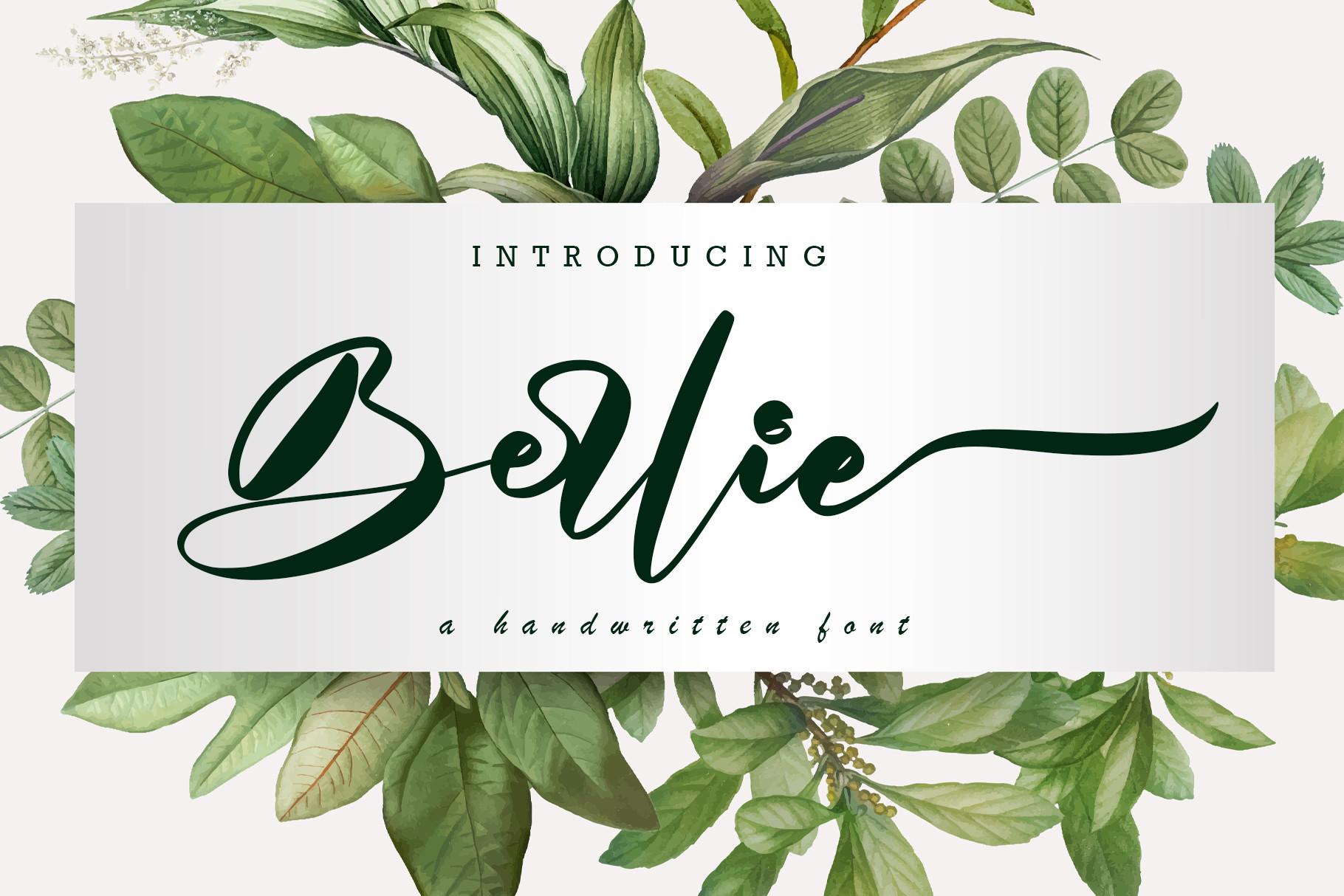
Berlie Font Description
Berlie is a refined, all round, and cursive handwritten font. It has beautiful and well-balanced characters and as a result, it matches a wide pool of designs. This font is PUA encoded which means you can access all of the glyphs and swashes with ease!